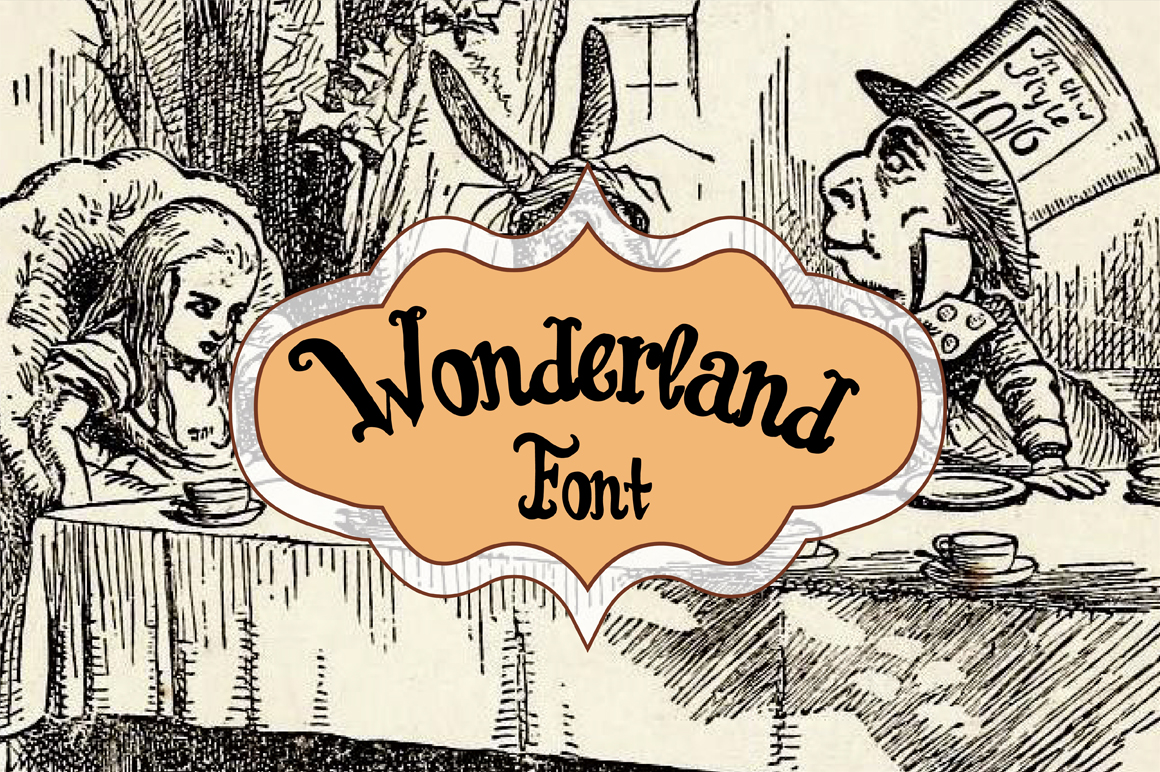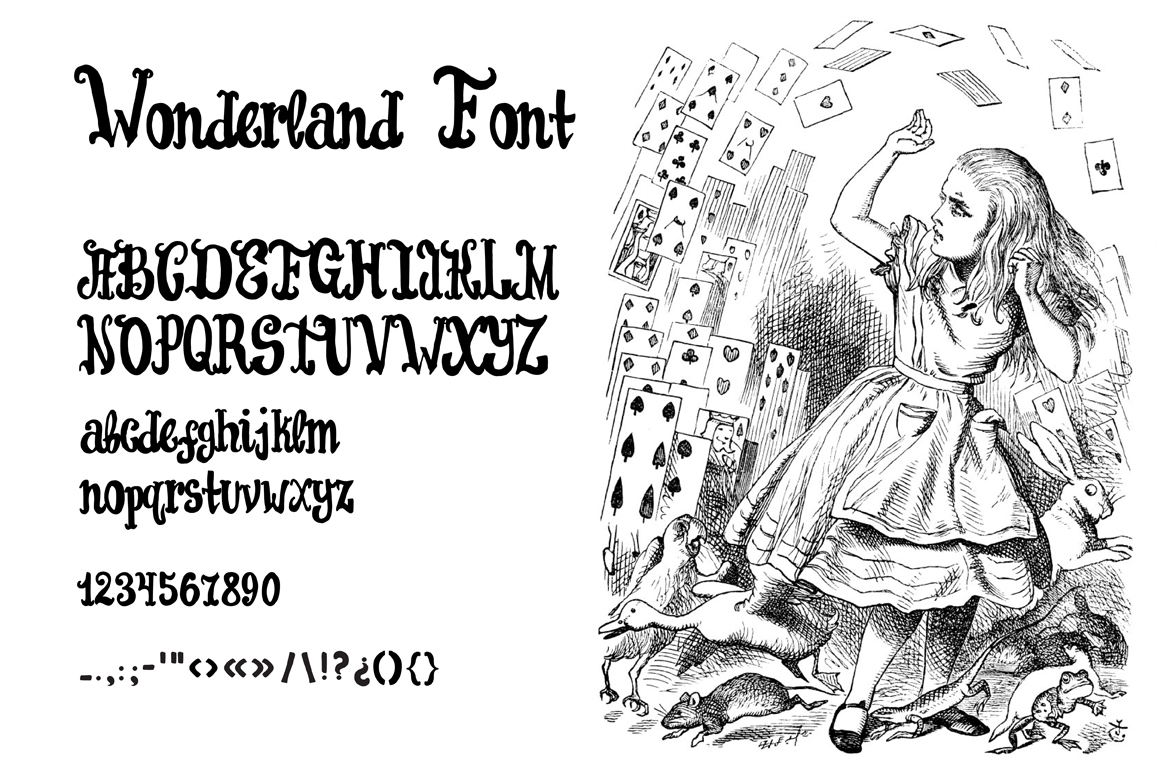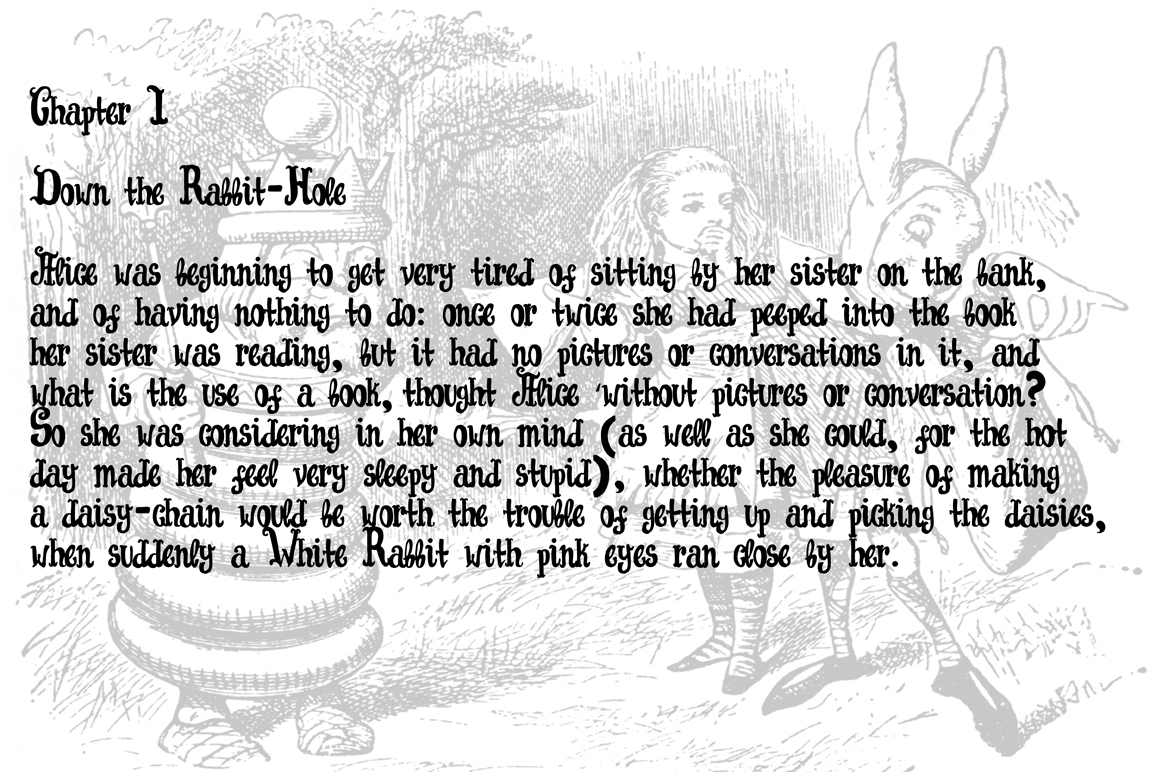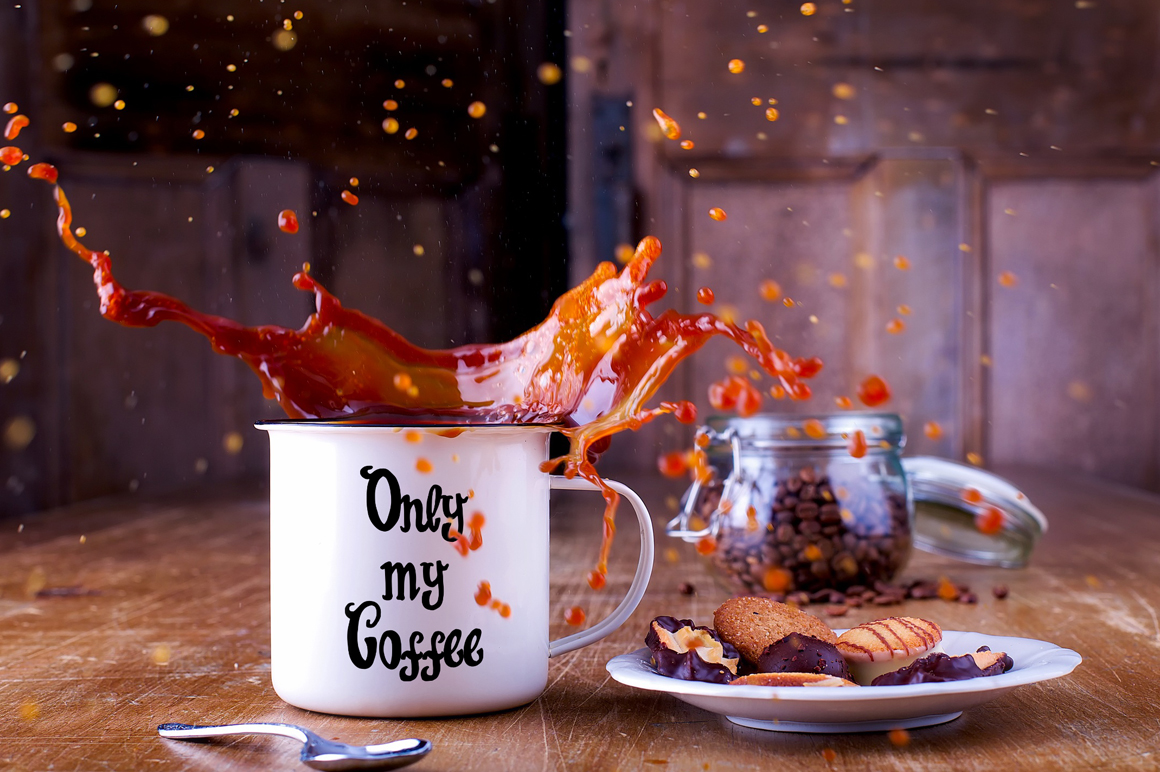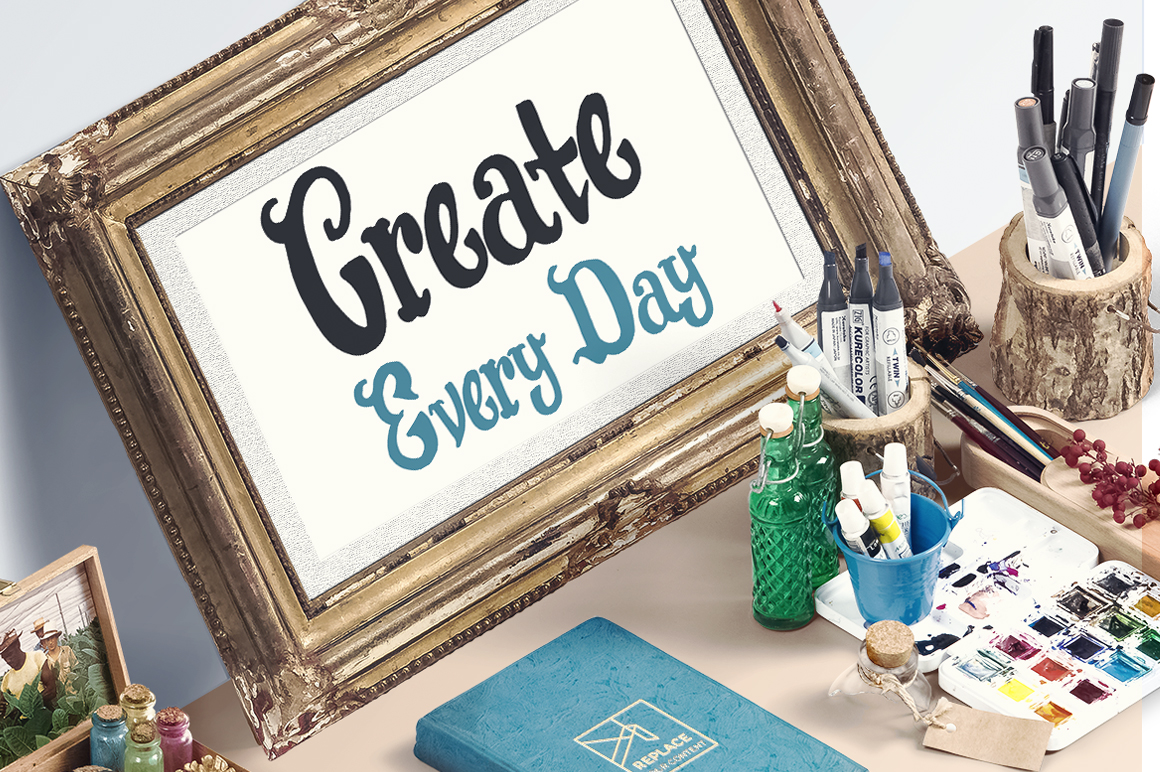
Wonderland Script Font
About Wonderland Script Font
The Wonderland Script is a vintage, hand-brushed script. It has an organic, fun look that adds some magic!
This font works great for various type of designs, such as headings, signatures, logos, wedding invites, apparel, letterhead and much more.